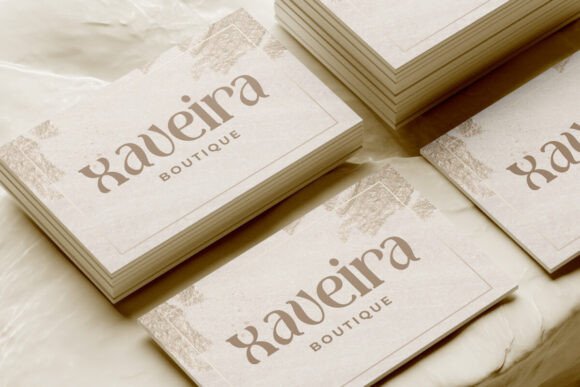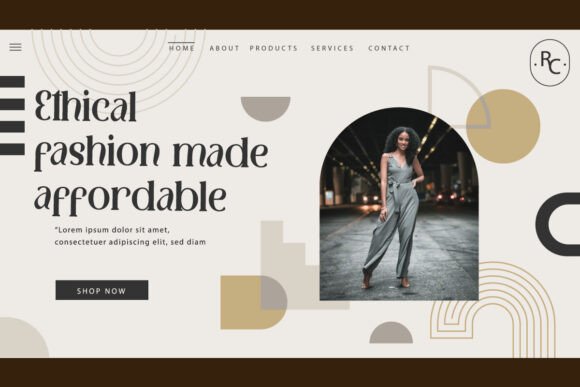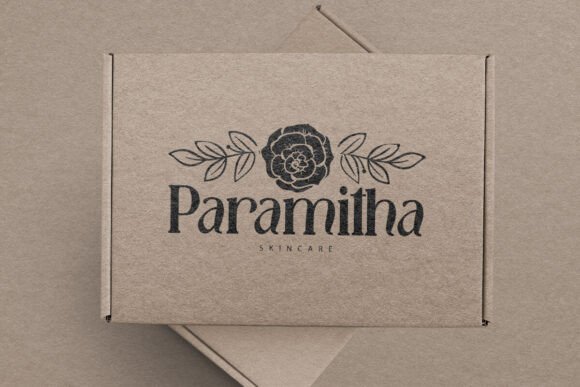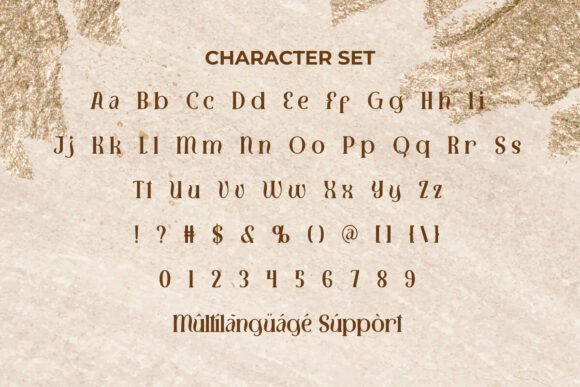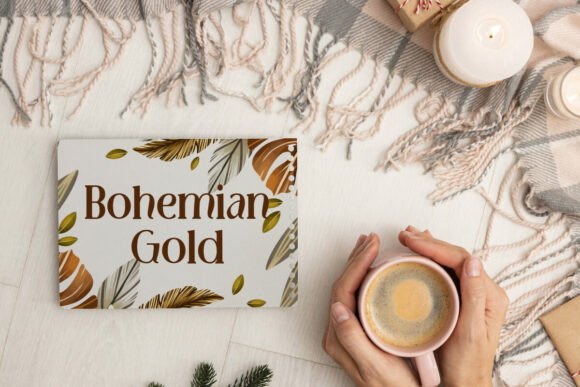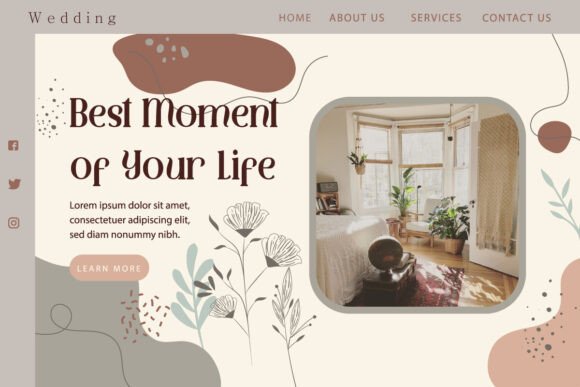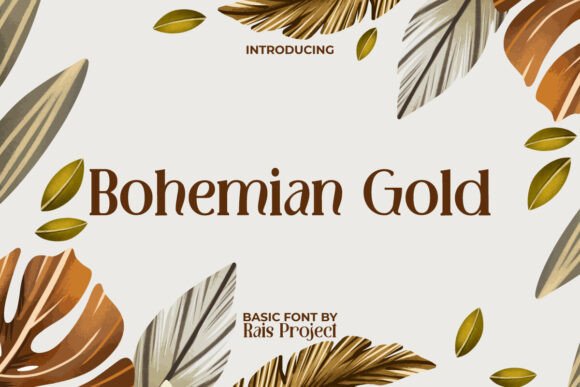
Discover the Magic of Bohemian Gold Font
Have you ever been in the middle of a design project, and suddenly, you’re stuck on finding the perfect font? I recall a recent experience where I was working on a branding project for a trendy boutique, and I just couldn’t find a font that captured the essence of the brand. That’s when I stumbled upon the Bohemian Gold Font, and it completely transformed my design. In this article, we’ll dive into the world of Bohemian Gold Font, exploring its unique features, and how to make the most of it in your designs.
A Personal Review of Bohemian Gold Font
What I Love About Bohemian Gold Font
- ✨ Unique and eye-catching aesthetic with a curvy, beautiful style
- ✅ Stunning display font perfect for headlines, titles, and emphasis
- 💫 Flows like leaves blown by the wind, adding a touch of whimsy to your designs
- 🎨 Versatile and suitable for various design projects, including advertisements, branding, packaging, and more
While Bohemian Gold Font is an amazing addition to any design, there are a few things to keep in mind:
- 🤔 May not be suitable for body text or long paragraphs due to its decorative nature
- ⚠️ Limited legibility at small font sizes, so use it wisely
A Practical Guide to Using Bohemian Gold Font
- Experiment with OpenType features, such as glyphs and stylistic alternates, to add more flair to your design
The Backstory of Bohemian Gold Font
Bohemian Gold Font was inspired by the free-spirited nature of the bohemian lifestyle. The designer aimed to capture the essence of a carefree, artistic vibe in a font that would be both beautiful and unique. The result is a stunning display font that adds a touch of magic to any design.
| Font Name | Bohemian Gold Font |
| Author | RaisProject |
Q: What is Bohemian Gold Font best used for?
Bohemian Gold Font is perfect for display purposes, such as headlines, titles, and emphasis. It’s ideal for branding, advertising, packaging, and other creative projects.
Q: Can I use Bohemian Gold Font for body text?
While Bohemian Gold Font is beautiful, it’s not recommended for body text or long paragraphs due to its decorative nature and limited legibility at small font sizes.
Q: Is Bohemian Gold Font suitable for formal events?
Bohemian Gold Font has a whimsical, artistic feel, so it may not be the best choice for very formal events. However, it can add a touch of elegance and sophistication to luxury branding and formal designs.